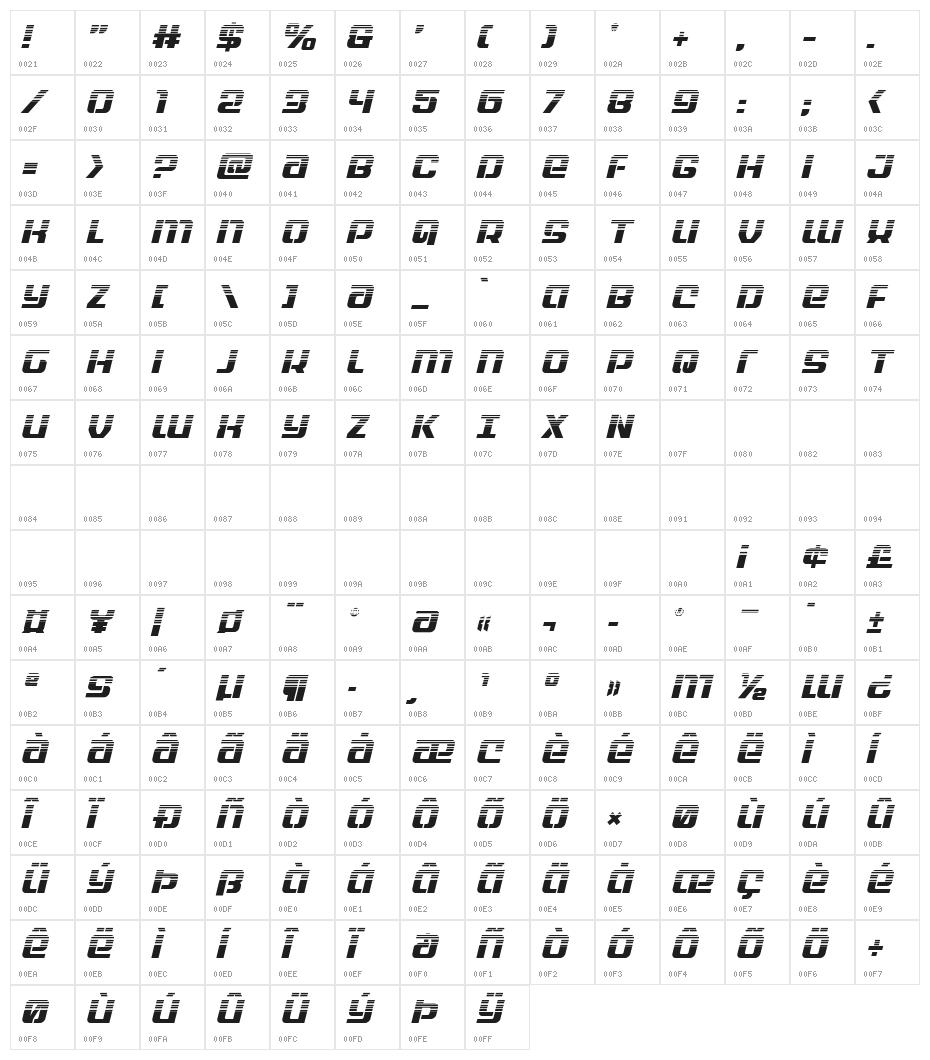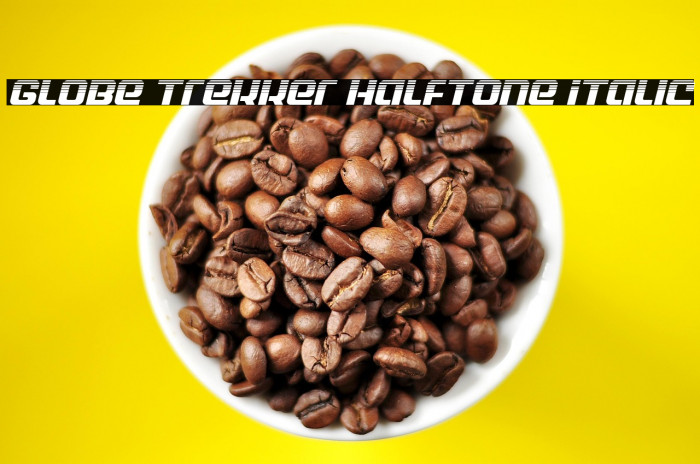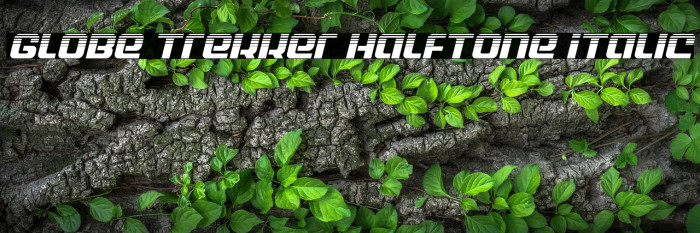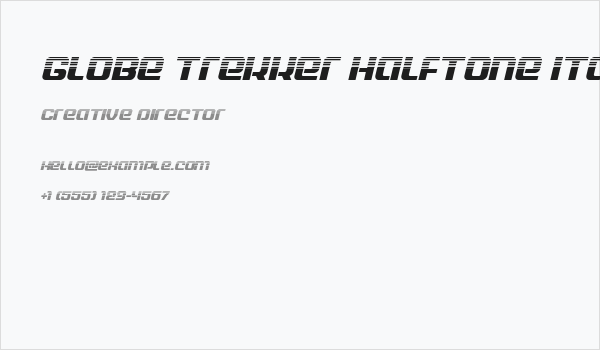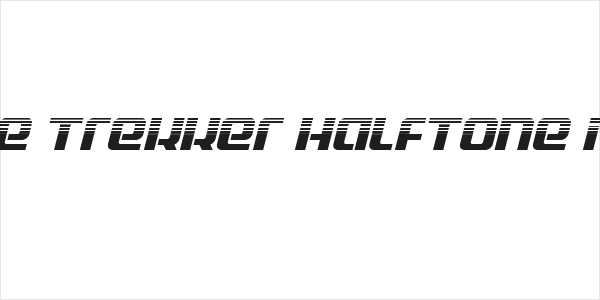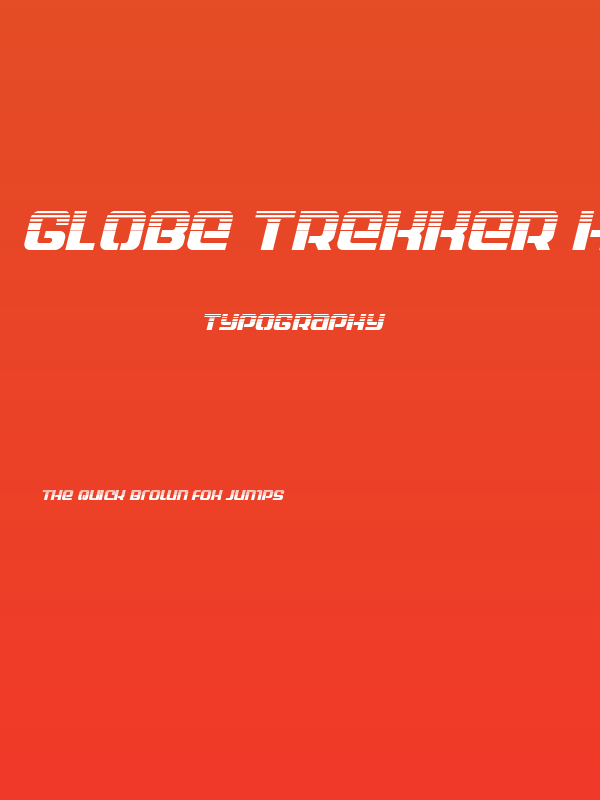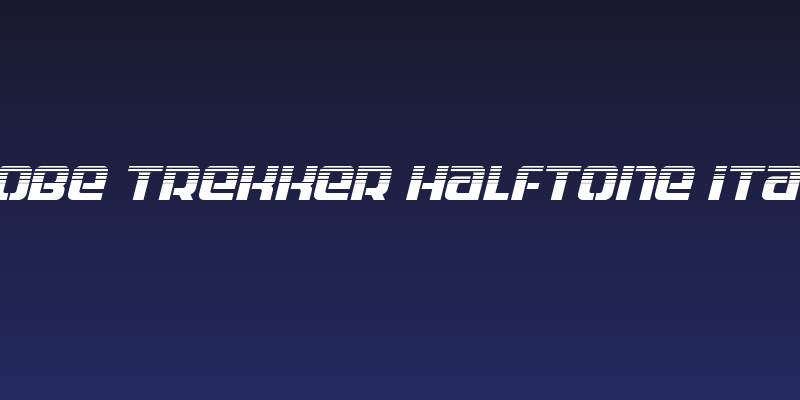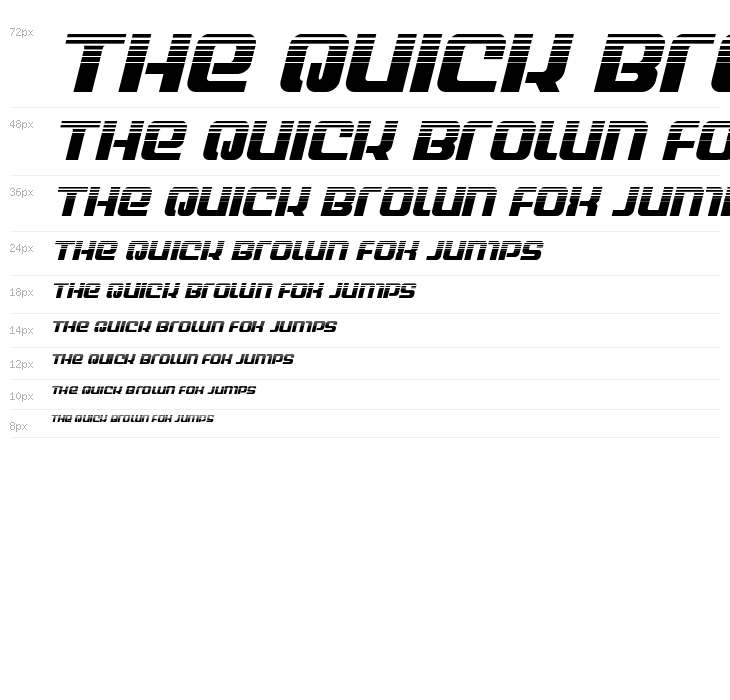
Globe Trekker Halftone Italic Font
Globe Trekker Halftone Italic Description
This font features a bold, italicized style with a distinctive halftone effect. The characters are slanted, giving a sense of motion and dynamism. Each letter is composed of solid black segments interspersed with horizontal white lines, creating a striped appearance that adds depth and texture. The uppercase and lowercase letters maintain a consistent design, with the lowercase being slightly smaller in scale. The numerals and special characters follow the same stylistic approach, ensuring uniformity across all glyphs. This font's unique design makes it stand out, offering a modern and futuristic aesthetic.
| Proposed Projects | Ideal for futuristic branding, sports team logos, tech event posters, and dynamic web design. |